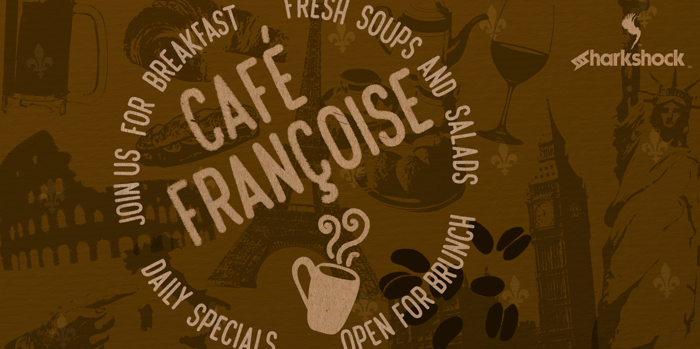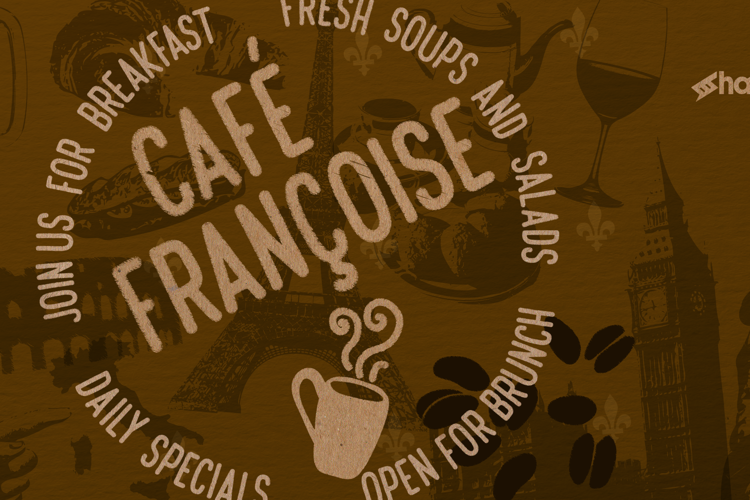
Cafe Francoise Font
outdoor chalk board signage in front of outdoor cafes. These are common on the streets of places like London, Paris, Montreal, and Belgium. The letters are casual by design with just enough texture for convincing chalk marks. Use Cafe Francoise for a bakery logo, cafe menu, or poster. Basic Latin, extended Latin, diacritics, punctuation, kerning, and graphics are included. Please check the glyph map for all supported characters and images.